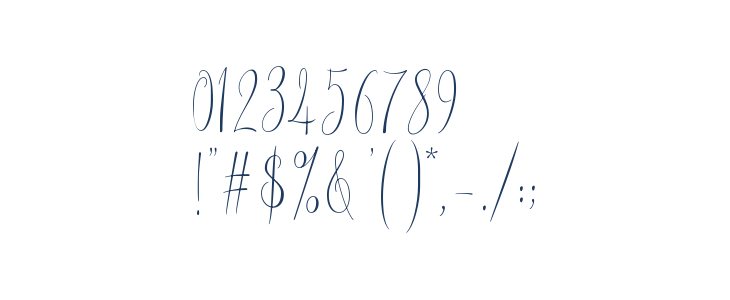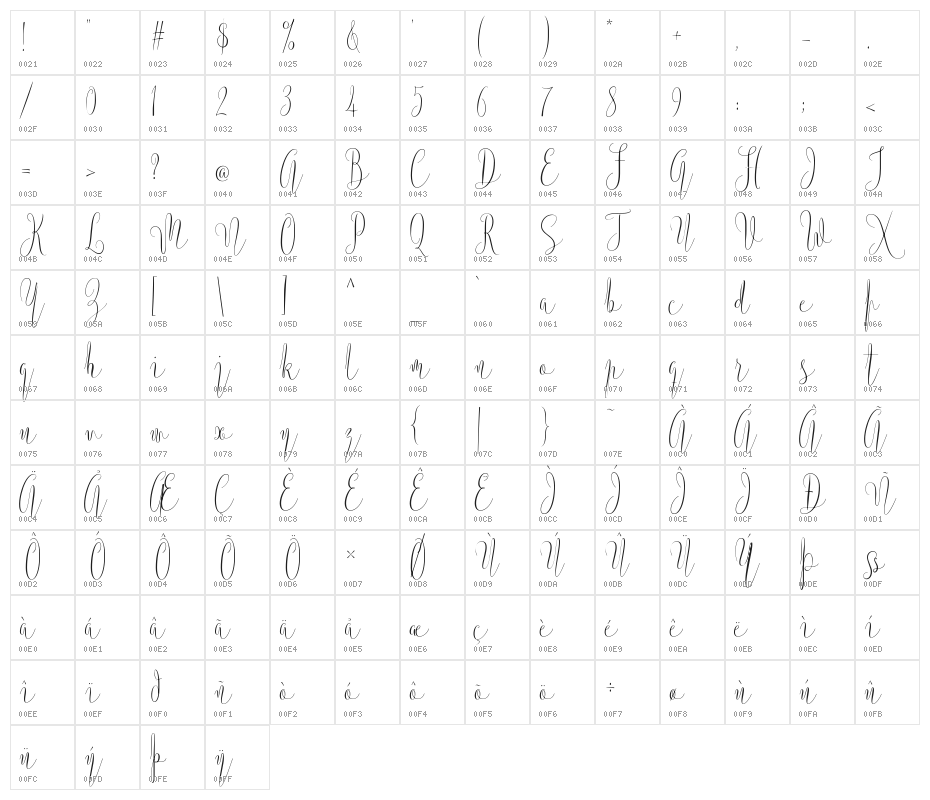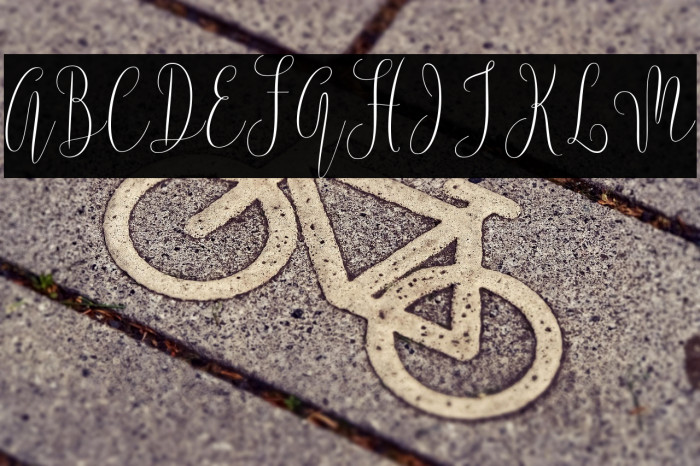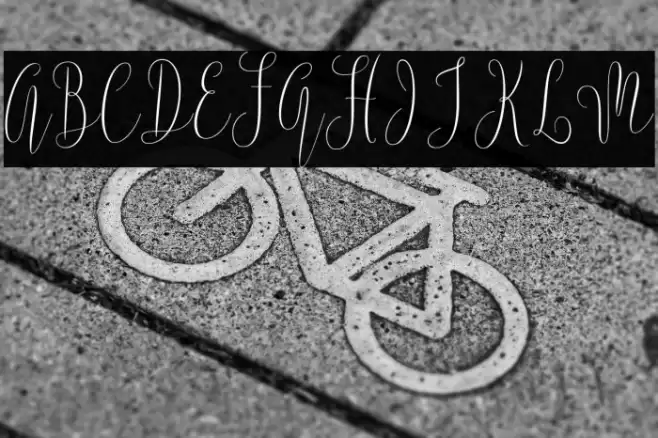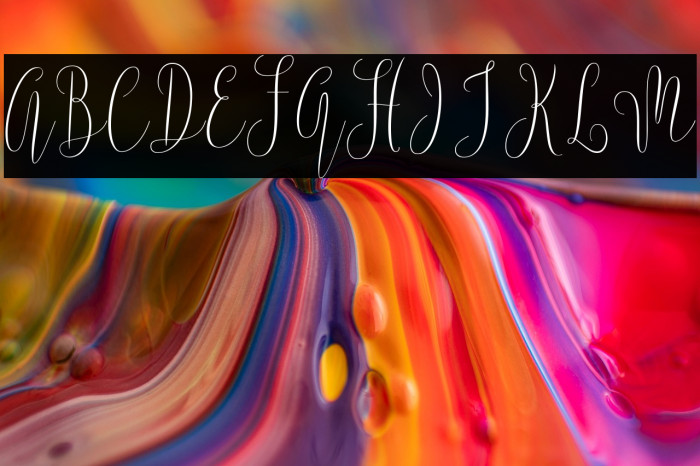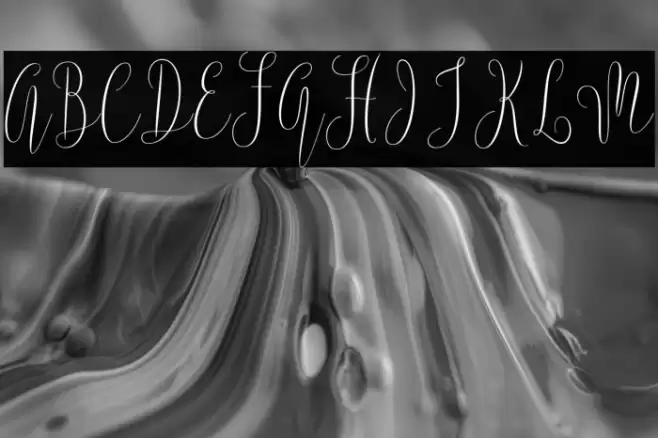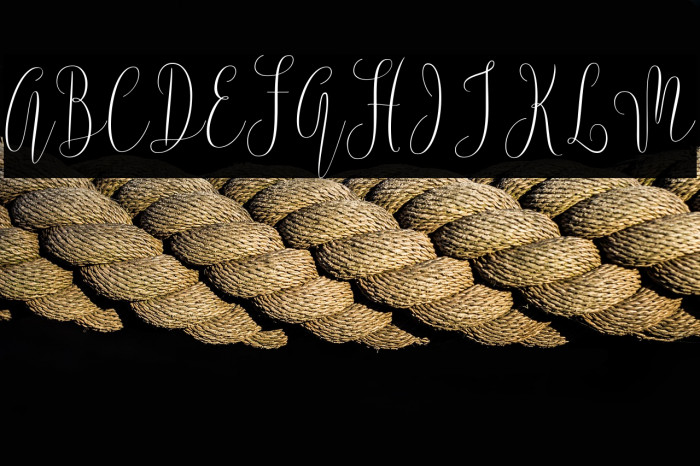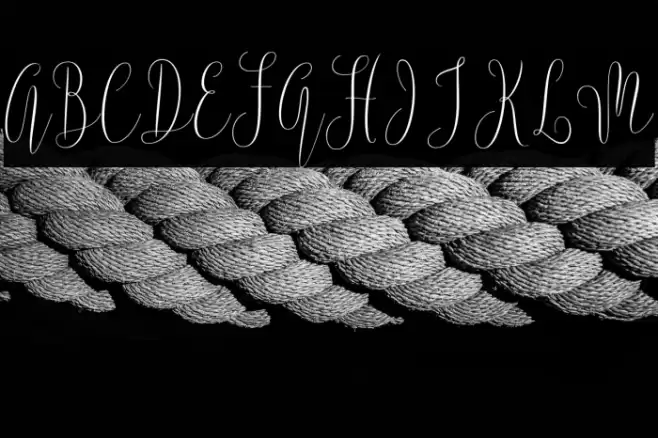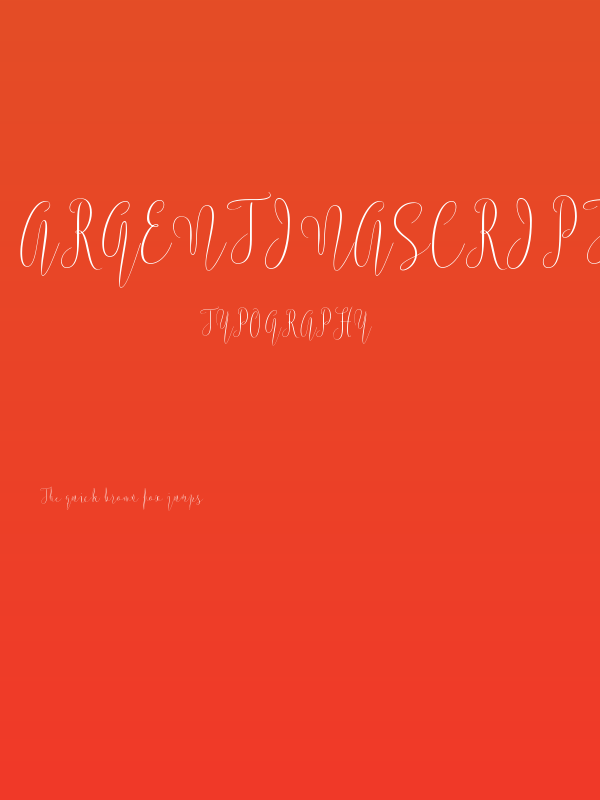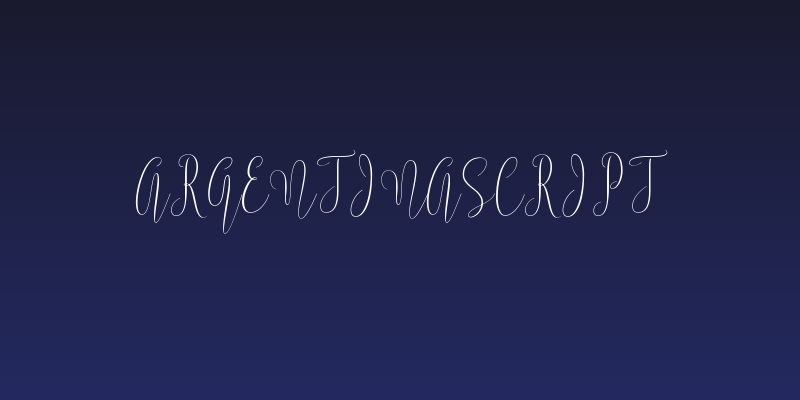
ArgentinaScript Font
ArgentinaScript Description
This elegant script font features a flowing, cursive style with delicate, elongated strokes that give it a sophisticated and graceful appearance. The uppercase letters are characterized by their tall, sweeping ascenders and loops, while the lowercase letters maintain a consistent fluidity and rhythm. The numerals and special characters are designed with the same attention to detail, ensuring a cohesive look throughout. The font's thin lines and high contrast between thick and thin strokes add to its refined aesthetic, making it suitable for formal and decorative applications.
Overall StyleElegant, Decorative
Use CaseLogos, Invitations, Decorative text
Proposed ProjectsIdeal for wedding invitations, elegant branding, greeting cards, and decorative headlines.